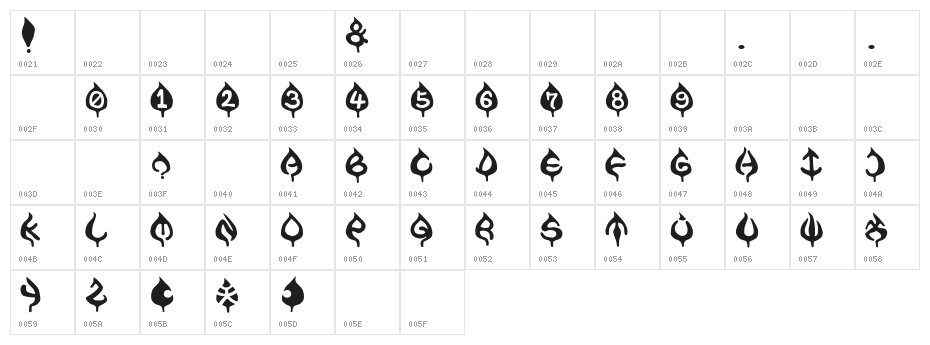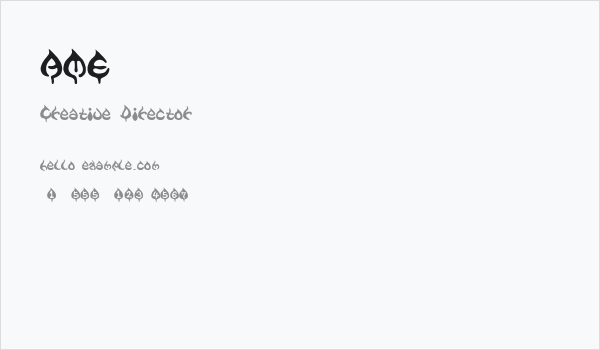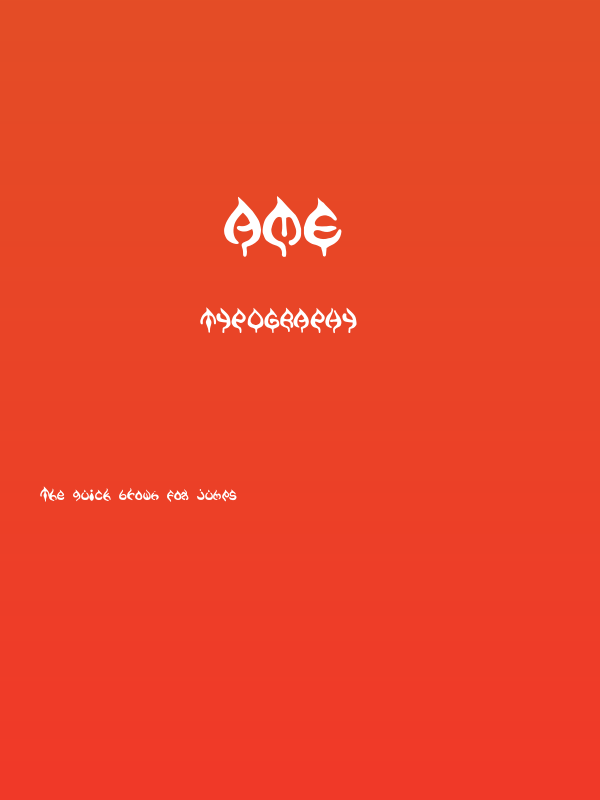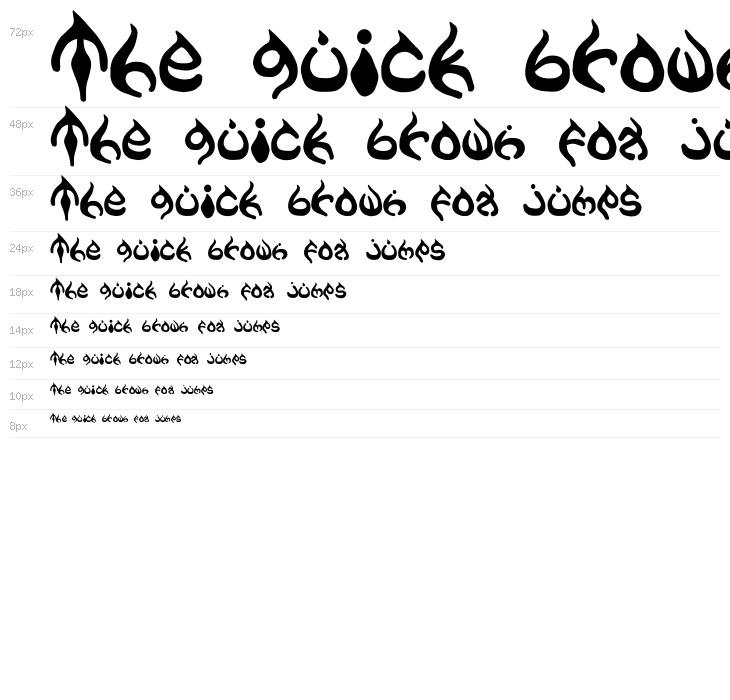
AME- Font
AME- Description
This font features a unique, decorative style with a bold and artistic flair. The characters are designed with a leaf-like shape, giving them a distinct and organic appearance. The uppercase and lowercase letters maintain a consistent theme, with rounded edges and pointed tips that resemble flames or teardrops. The numbers follow the same stylistic approach, enclosed within leaf-shaped outlines. The special characters, such as the exclamation mark and ampersand, are creatively integrated into the overall design, enhancing the font's cohesive look. This font's boldness and decorative nature make it stand out, suitable for projects that require a strong visual impact.
| Proposed Projects | Ideal for branding, posters, album covers, and any project requiring a bold, artistic touch. |